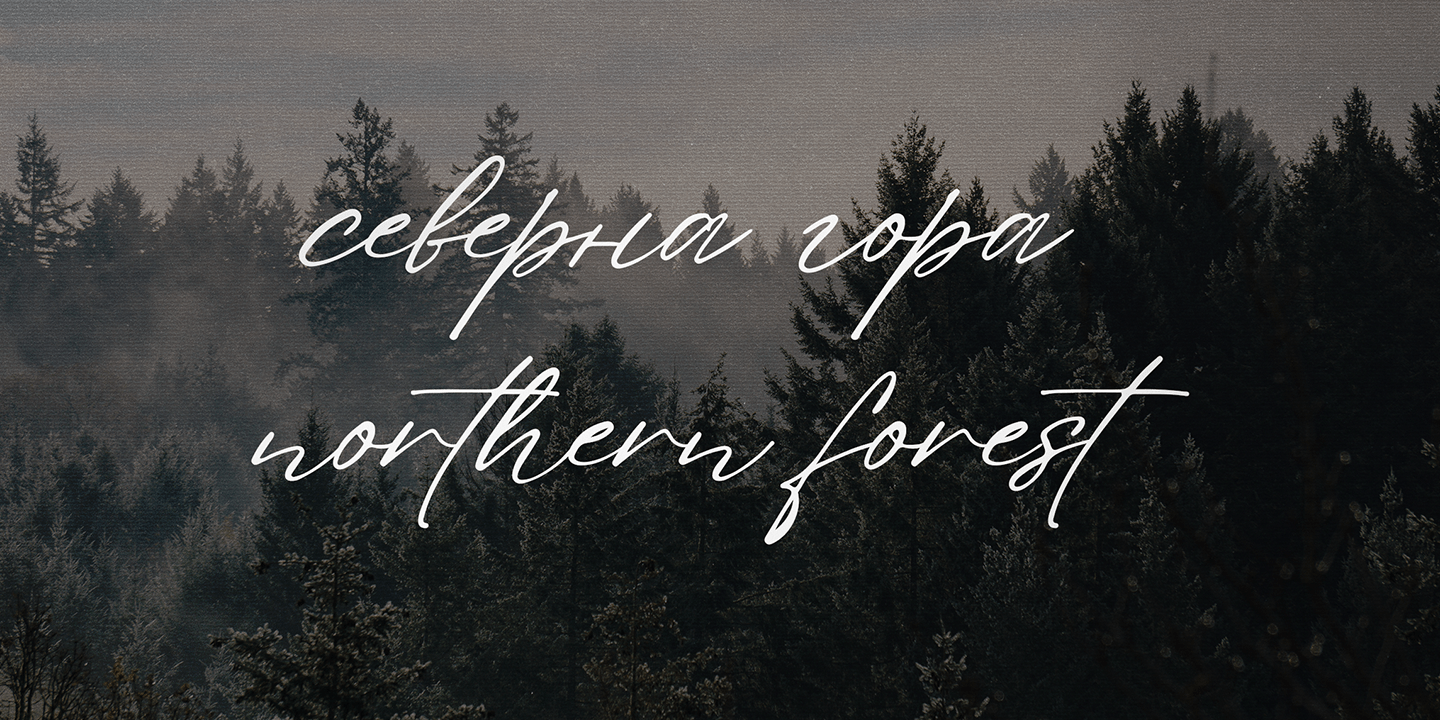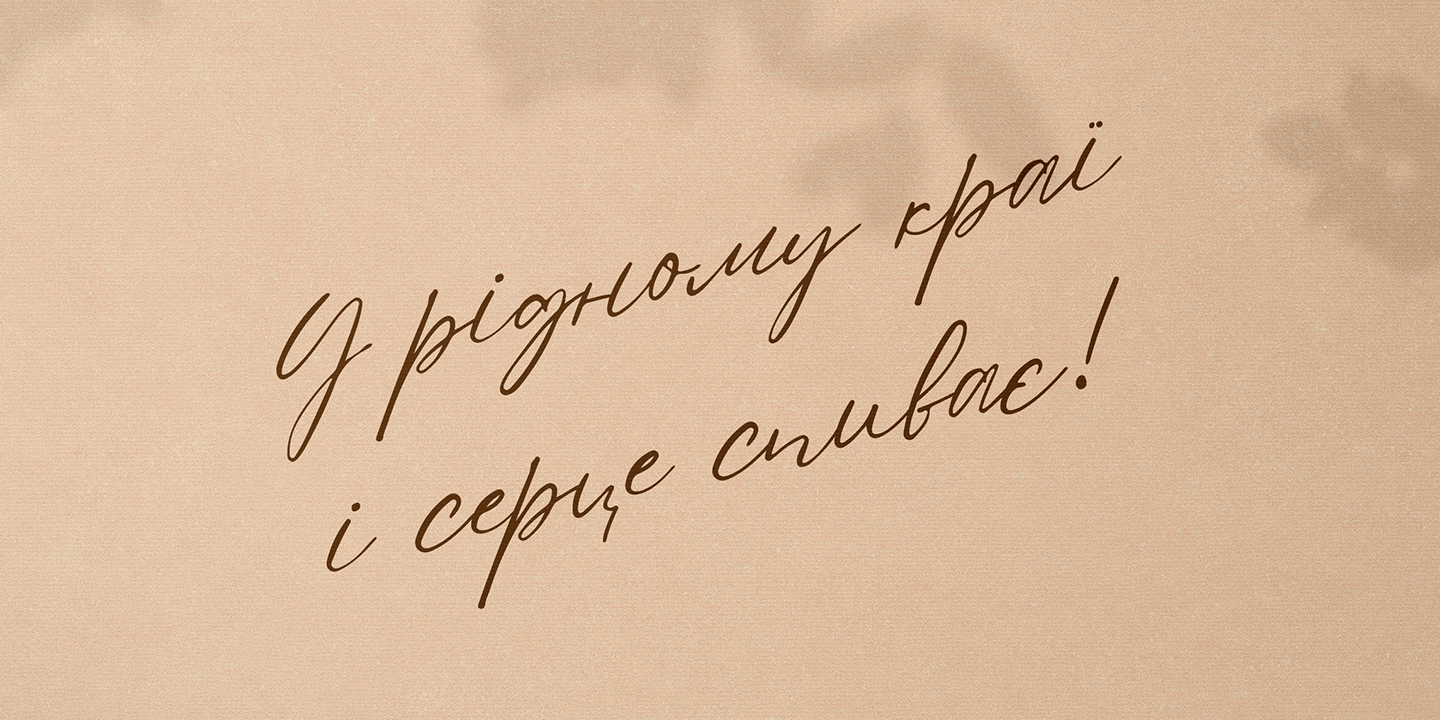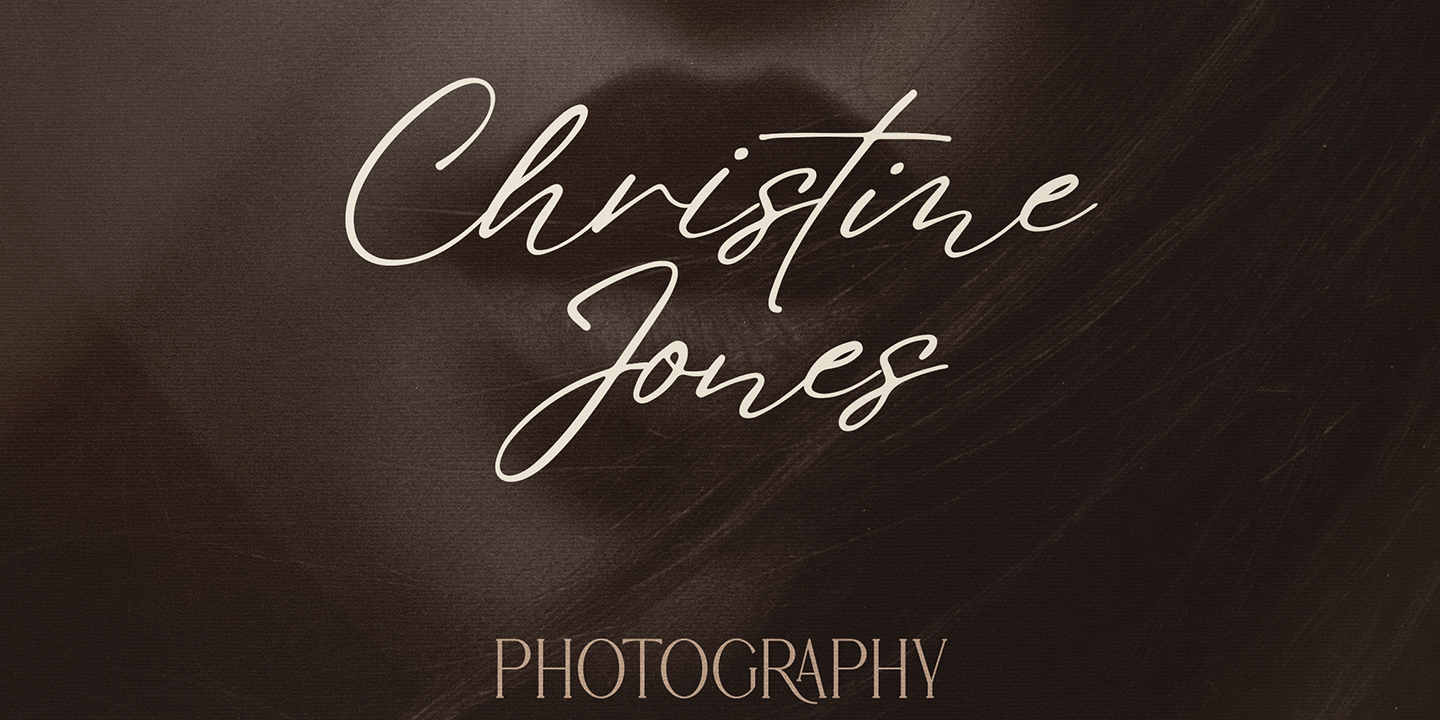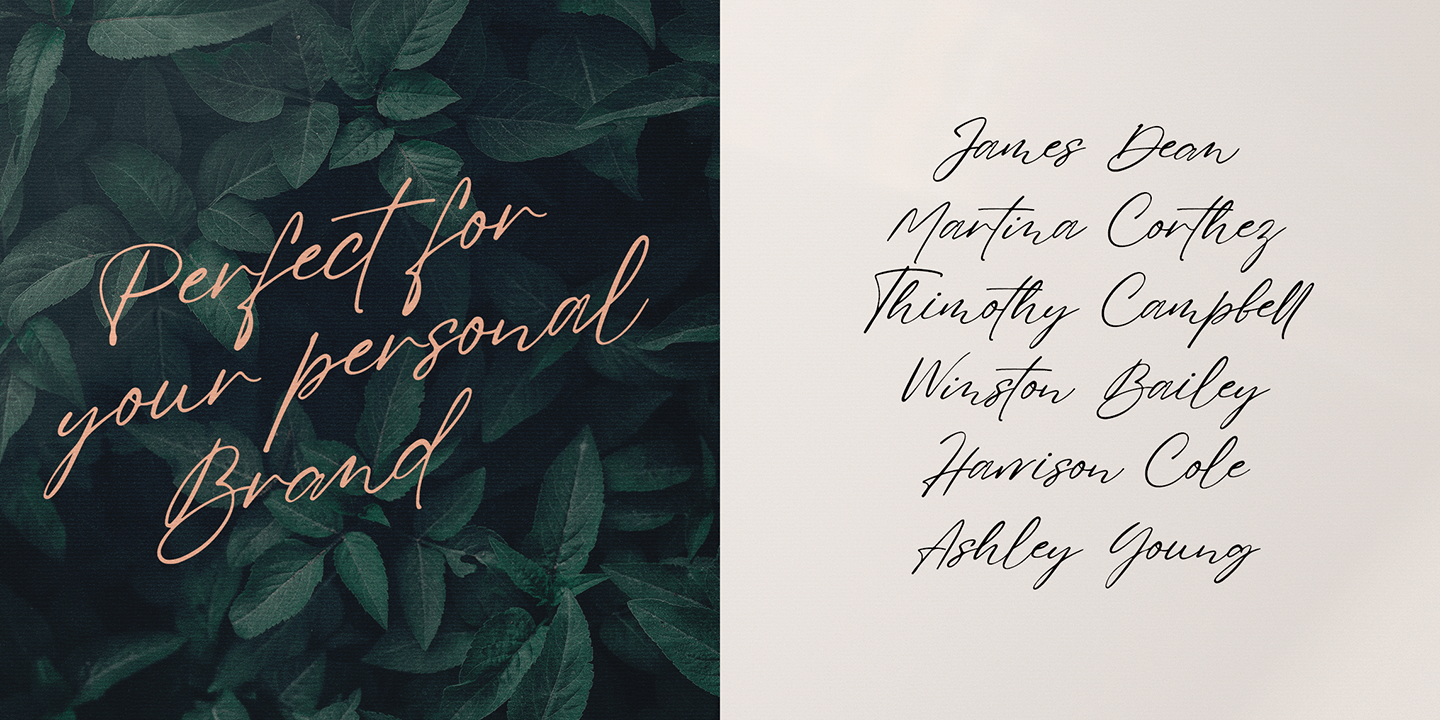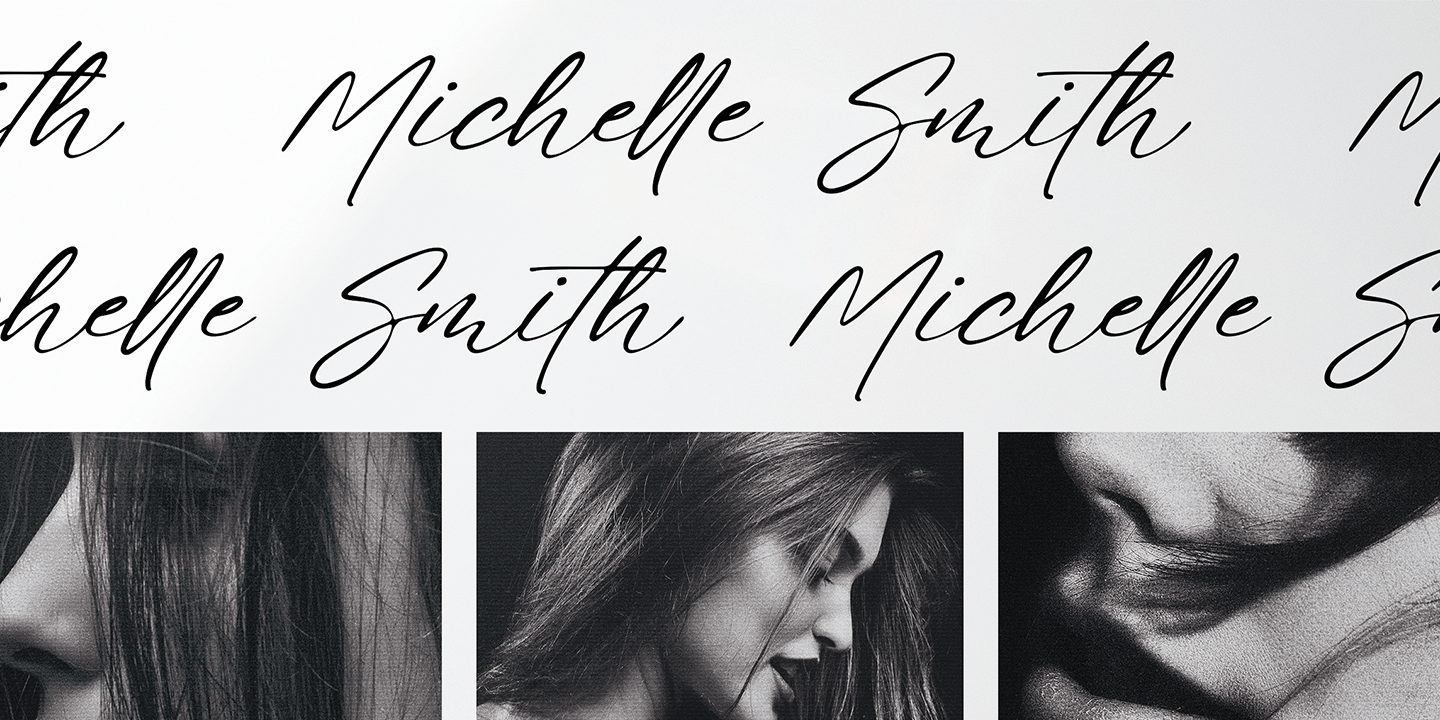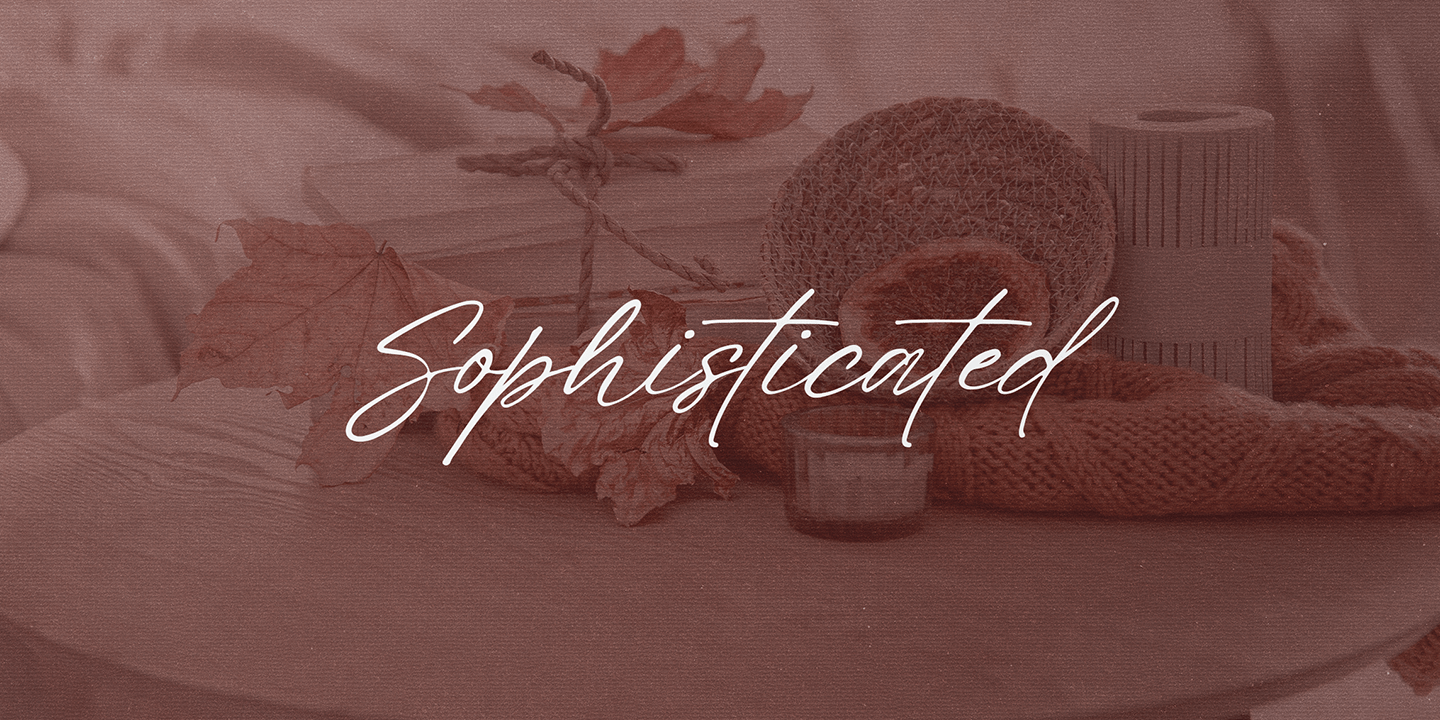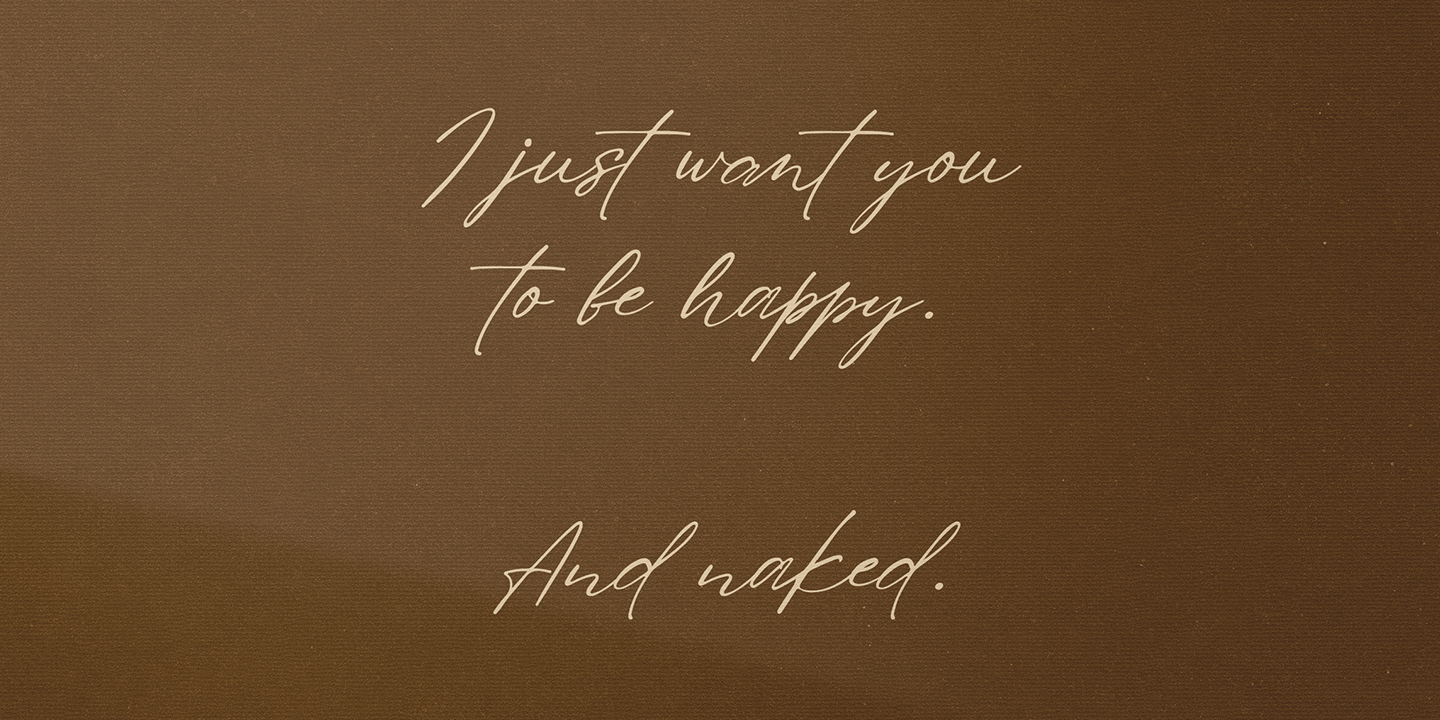
Sign That Regular
About Sign That Regular
Introducing Sign That – Signature script Sign That is organic and casual script loaded with ligature glyphs and 95 languages support Language Support : Belarusian, Bosnian, Bulgarian, Chechen, Macedonian, Russian, Serbian, Afrikaans, Albanian,…